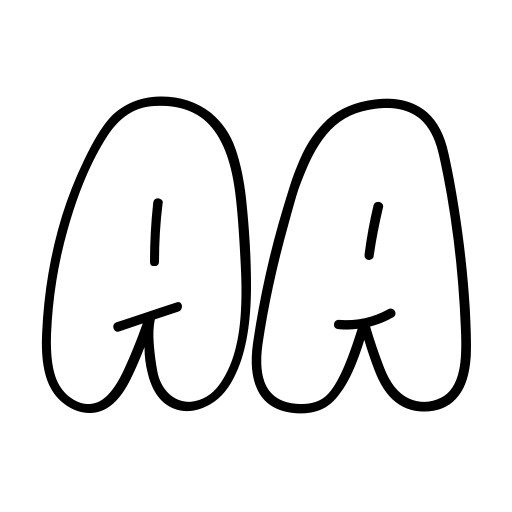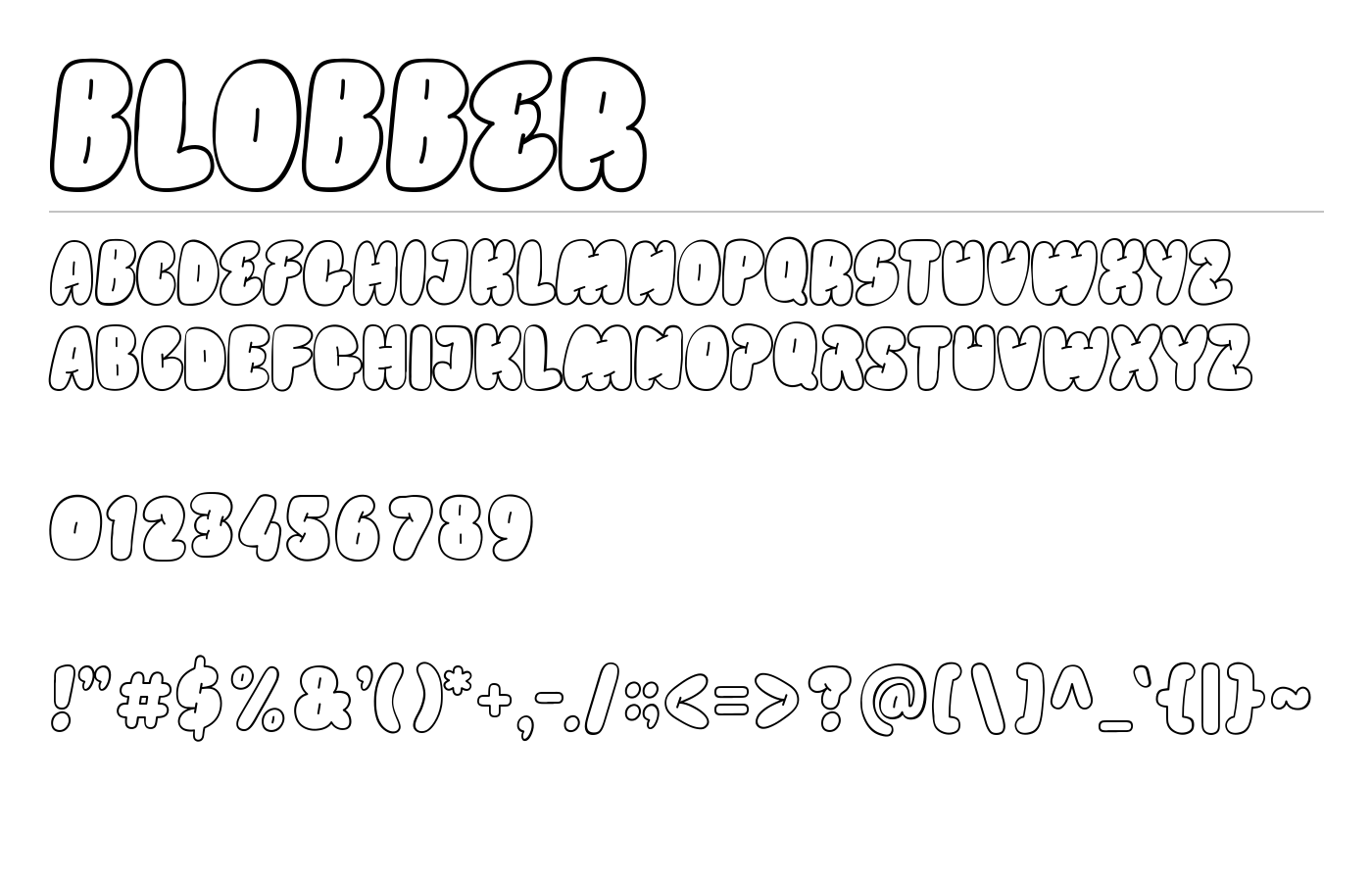
Blobbber is a bold, playful sans serif font characterized by its bubbly, rounded letterforms and thick, uniform strokes that create a soft, whimsical feel. Its cartoonish style with inflated shapes and smooth curves makes it ideal for fun, casual designs such as logos, children's products, and eye-catching headlines. This font brings a lively, joyful vibe to any project, making it perfect for brands seeking a friendly and approachable tone.
BLOBBER Font
About BLOBBER Font
| Font family | BLOBBER Font |
| Designer | Sahirul |